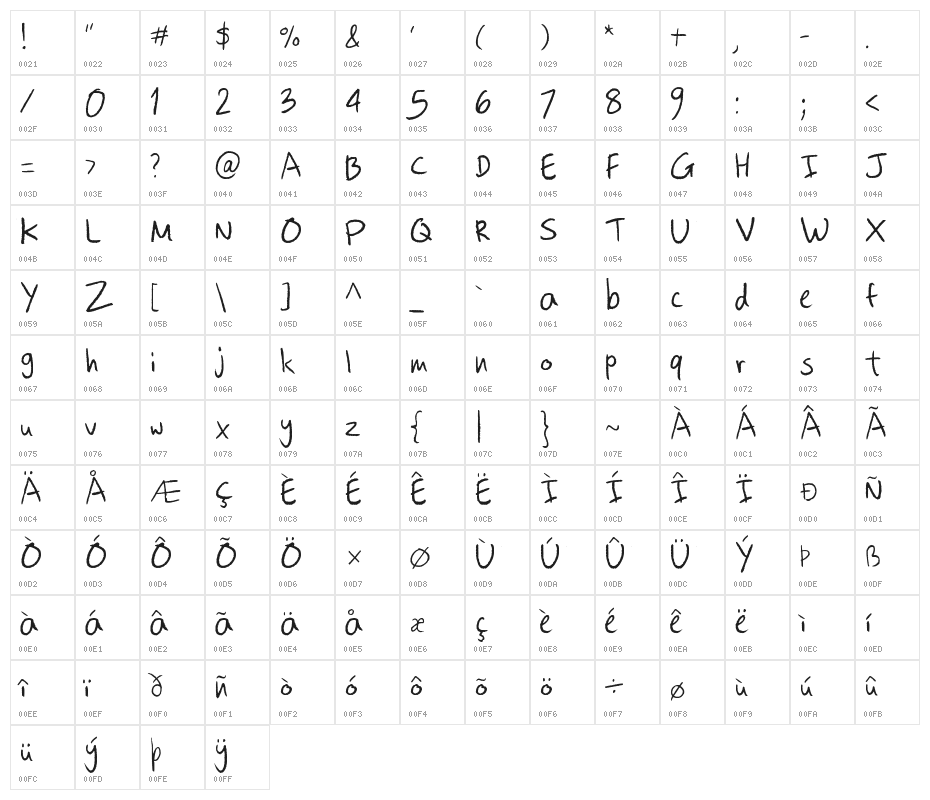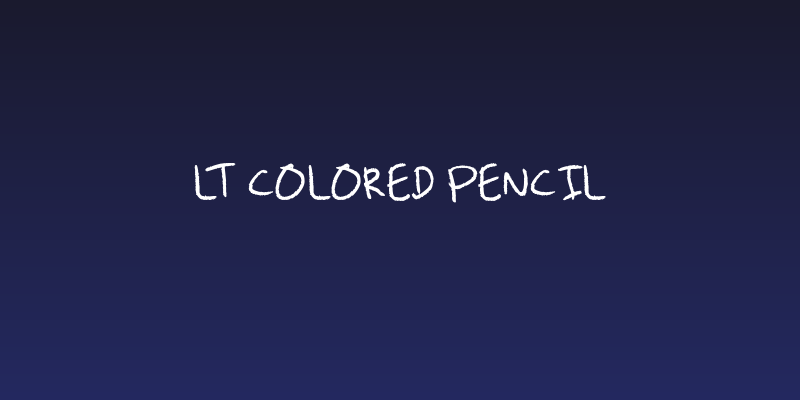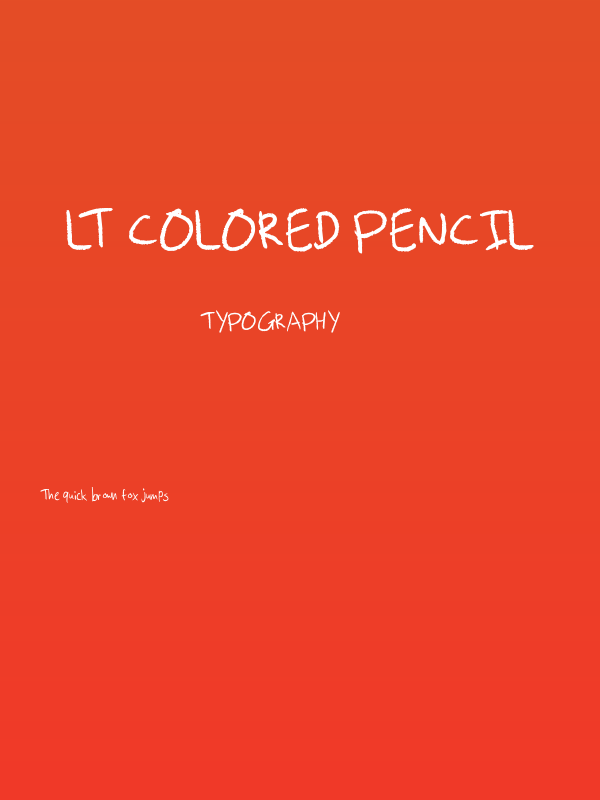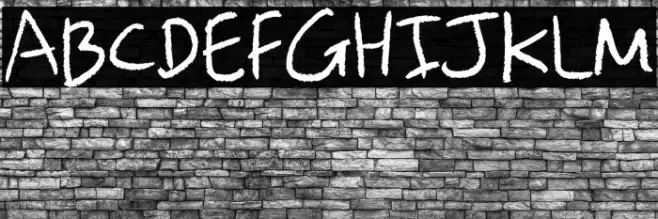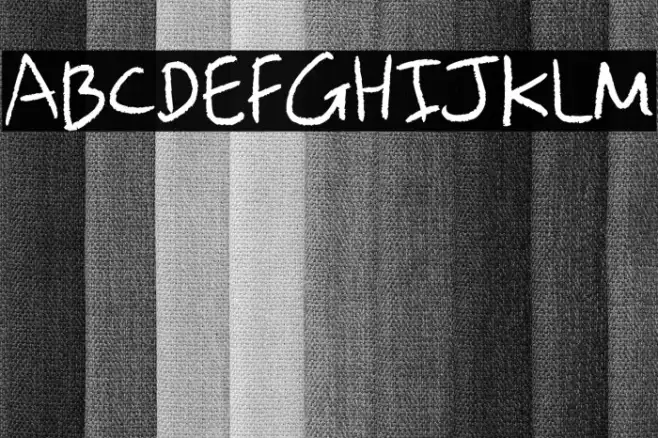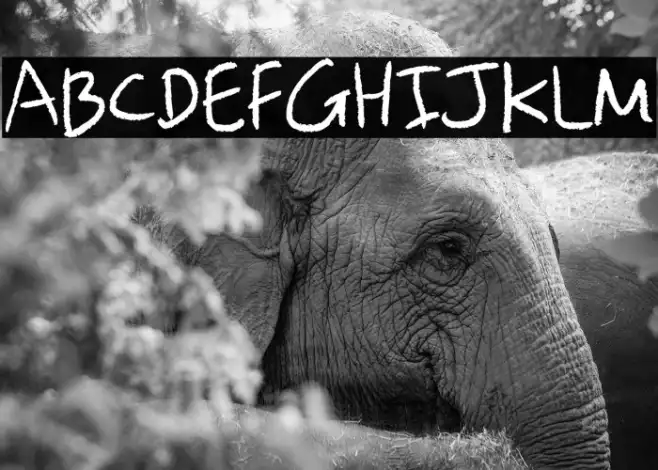
LT Colored Pencil Font
LT Colored Pencil Description
This font exudes a playful and artistic vibe, reminiscent of hand-drawn letters with a colored pencil. The strokes are uneven, giving it a casual and informal appearance. Each character is distinct, with slight variations that add to the hand-crafted feel. The uppercase and lowercase letters maintain a consistent style, while the numerals and special characters blend seamlessly with the overall design. This font is perfect for projects that require a personal touch, such as children's books, creative posters, or artistic branding. Its unique style makes it stand out, capturing attention with its charming and whimsical nature.
| Overall Style | Casual, Artistic |
| Use Case | Headlines, Creative projects, Informal text |
| Proposed Projects | Ideal for children's books, creative posters, and artistic branding. |